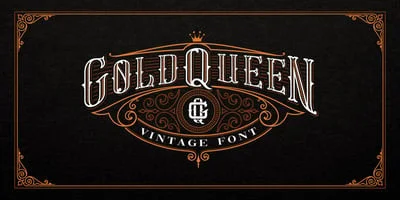
HKF Gold Queen DLC Font
HKF Gold Queen DLC Font is excellent for luxury jewelry branding, royal wedding invitations, high-end fashion campaigns, premium beauty packaging, exclusive event materials, golden anniversary celebrations, luxury hospitality marketing, aristocratic lifestyle advertising, prestigious award ceremonies, and regal entertainment venues.
What makes HKF Gold Queen DLC Font exciting is its royal magnificence that perfectly captures the opulent grandeur and majestic elegance found in royal courts and luxury aristocratic traditions. This typeface features ornate letterforms with golden proportions and regal details that evoke the sophisticated splendor and imperial majesty of royal ceremonies and aristocratic heritage. The font's majestic personality and royal authenticity make it ideal for luxury brands seeking to convey exclusivity, prestige, and the golden elegance that comes from royal traditions and aristocratic luxury lifestyle.
HKF Gold Queen DLC Font family includes majestic weight variations and royal alternatives that enhance its aristocratic appeal while providing design flexibility for luxury and royal applications. The font features golden ligatures, crown-inspired ornaments, and regal character variations that create authentic royal atmosphere for luxury and aristocratic branding.
Luxury brands and exclusive lifestyle companies consistently select HKF Gold Queen DLC Font for projects requiring authentic royal appeal and aristocratic credibility. The font's majestic character excels in applications targeting affluent consumers who appreciate genuine luxury and royal elegance. Whether you're designing for luxury jewelry houses, royal events, or aristocratic lifestyle brands, this magnificent typeface delivers the royal authenticity and golden splendor that resonates with audiences seeking genuine luxury experiences and the majestic elegance that defines royal heritage and aristocratic excellence in luxury lifestyle and golden age sophistication.